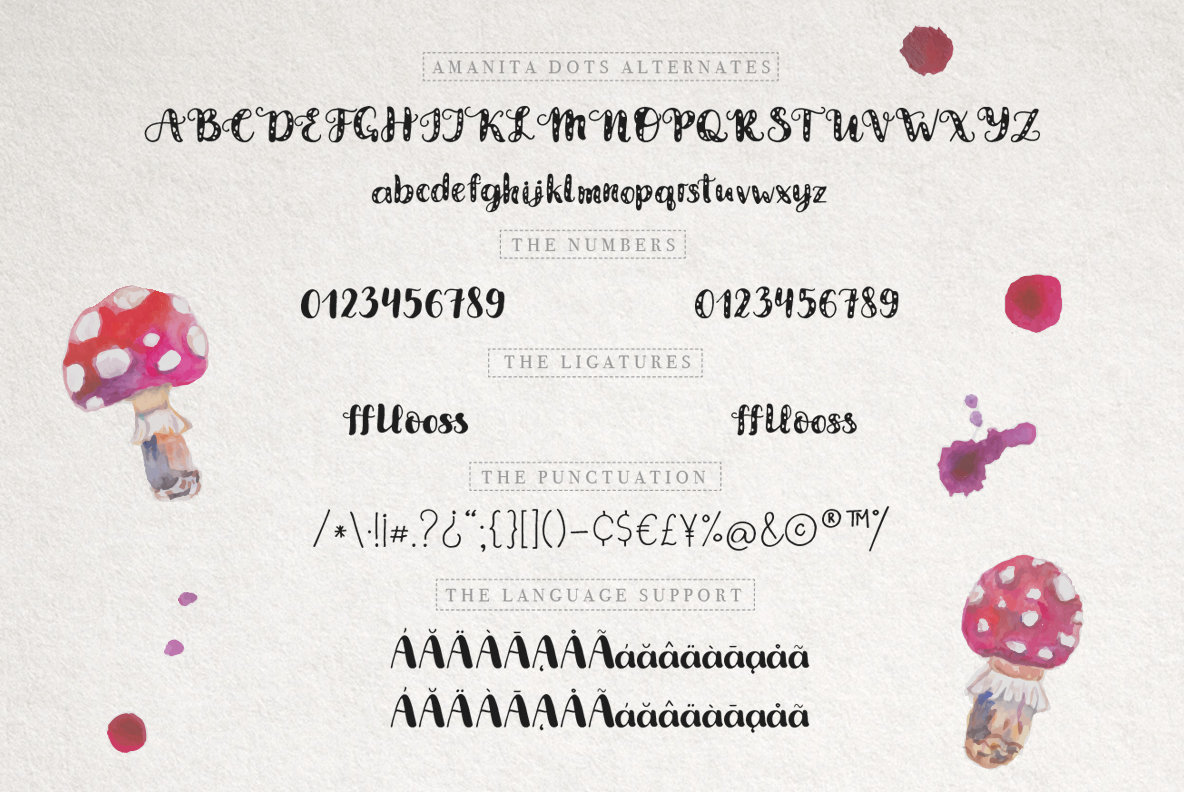
Amanita Font
With Amanita, you will get two super fun, hand-drawn fonts that comes with two sets of lowercase and uppercase letters and some ligatures, so that your designs can really get that "hand-drawn" feel.
Amanita dots font is really reminds amanita mushrooms. Decorative circles in letters make this font super cute and perfect for lovely fun designs. Amanita font is a clean version of the first font. This font fits perfectly with the previous one and looks great on its own.